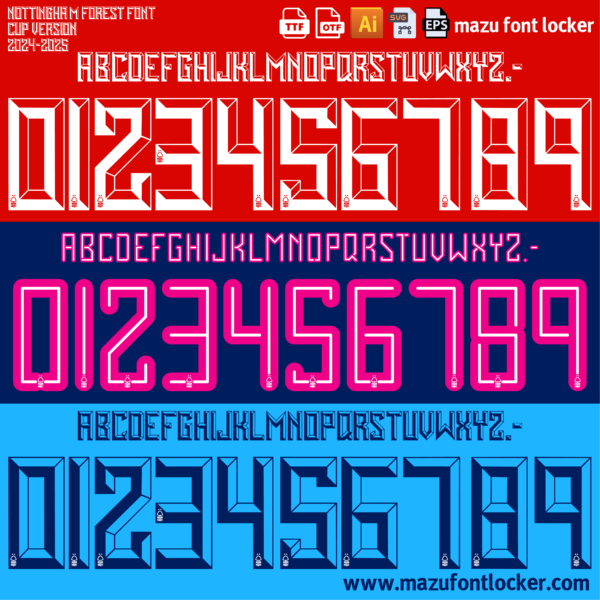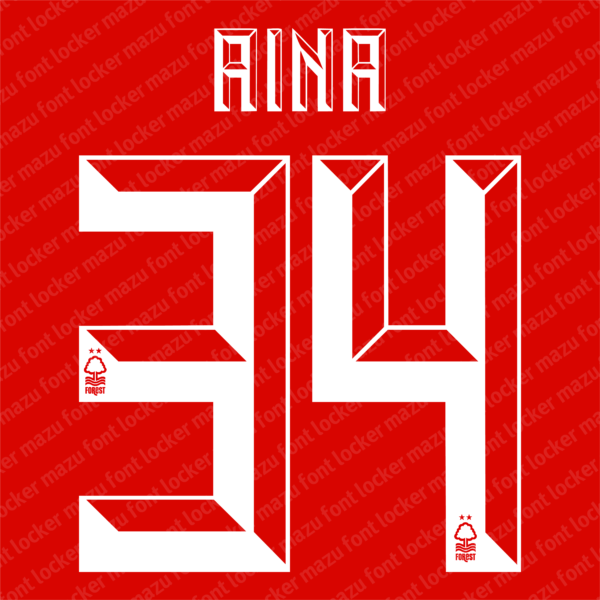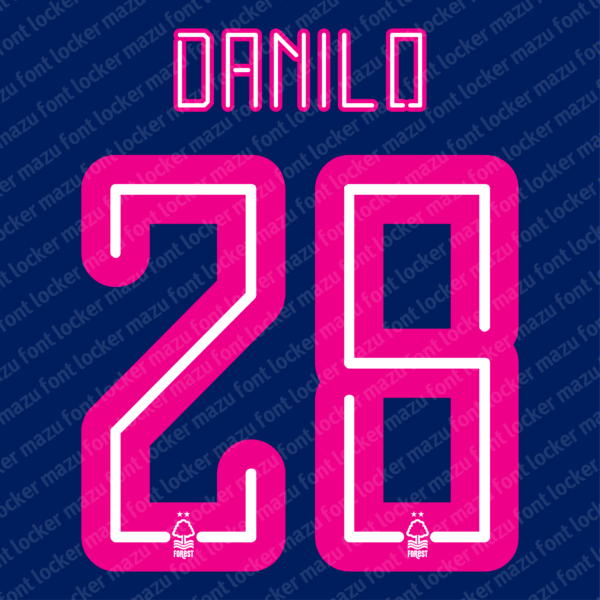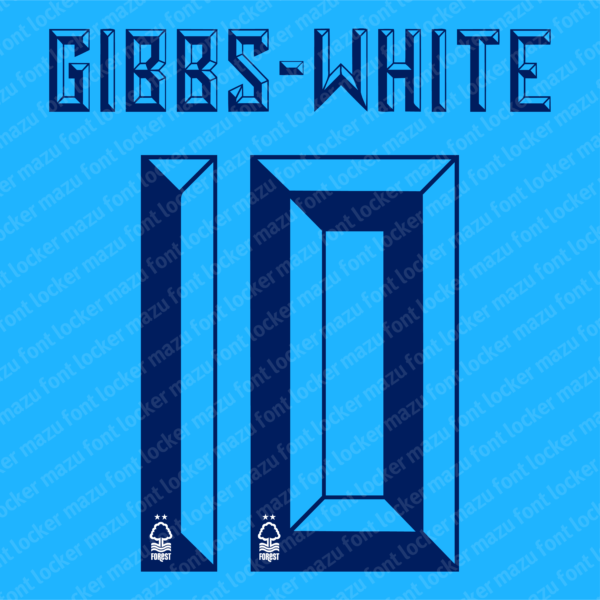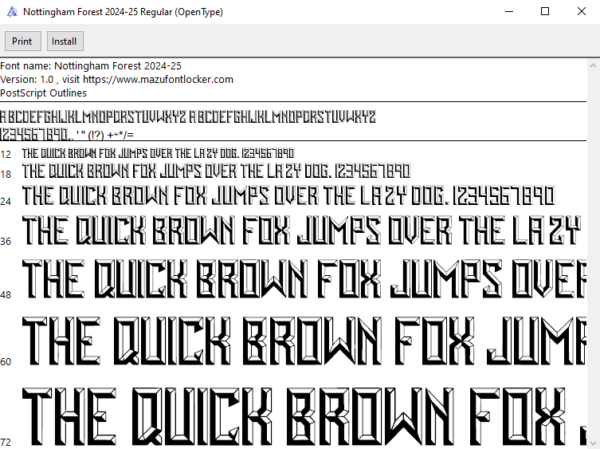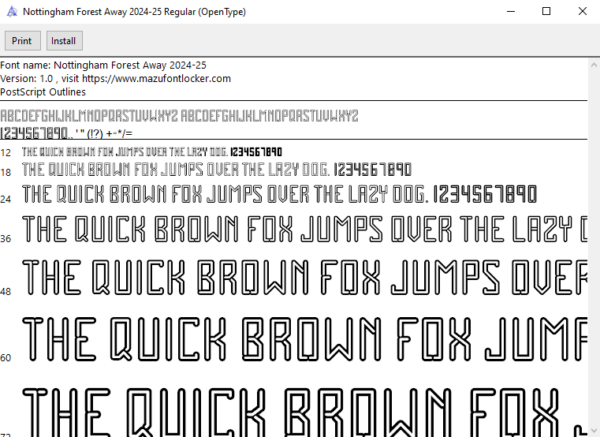
Nottingham Forest 2024-2025 font is a high-quality football jersey font vector designed to replicate the official lettering and numbering style used during the 2024-2025 season. This Nottingham Forest 2024-2025 font is perfect for designers, football fans, and creators who want accurate and professional jersey customisation.
Inspired by the official kit of Nottingham Forest, this Nottingham Forest 2024-2025 font delivers a clean and authentic match-day appearance. Every letter and number has been carefully recreated to match the real jersey design, ensuring your projects look realistic and professional.
Nottingham Forest 2024-2025 Font is a high-quality football jersey font vector created to replicate the official lettering and numbering style used during the iconic 2024-2025 Season. Perfect for designers, football fans, and jersey customisation projects, this font set delivers an authentic and professional match-day appearance.
Inspired by the original Nottingham Forest 2024-2025 team kit, every letter and number has been carefully recreated to ensure accurate retro styling for both digital and print projects.
- Authentic 2024-2025 Nottingham Forest jersey lettering style
The authentic lettering style helps recreate the classic look of the Nottingham Forest 2024-2025 kit with professional accuracy.
Unlike generic jersey fonts, this set is designed with a strong focus on authenticity and accuracy. Every detail is based on the original match lettering style used during the 2024-2025 season, helping designers and collectors create realistic football shirt designs.
This Nottingham Forest 2024-2025 font vector set is designed for authentic football jersey customization and works perfectly for retro football projects, collector designs, and professional sportswear artwork.